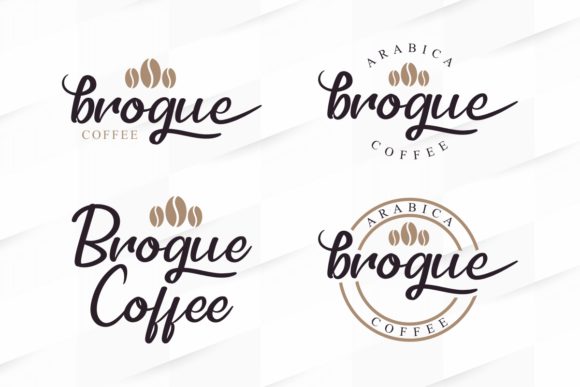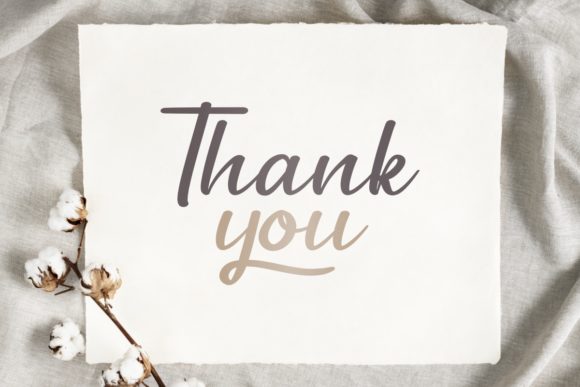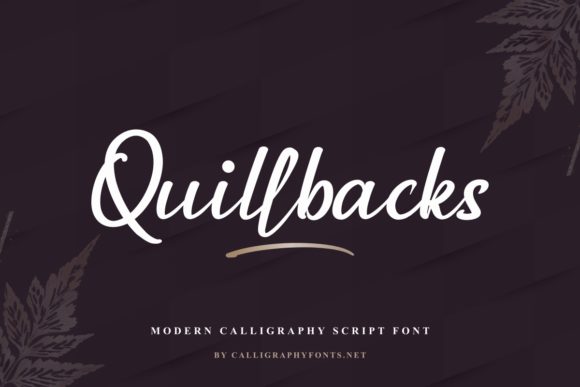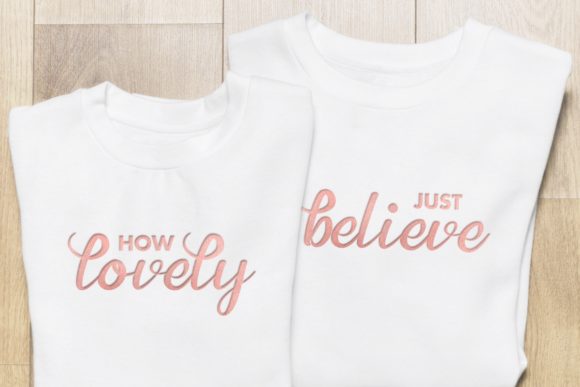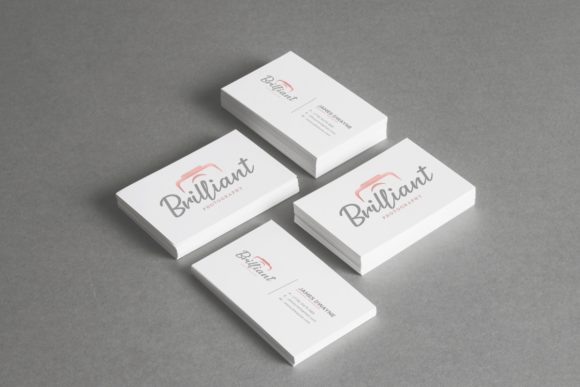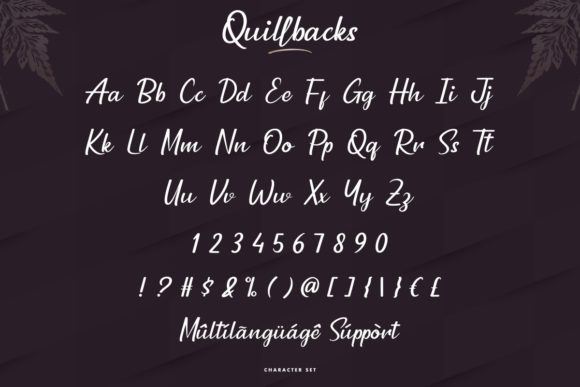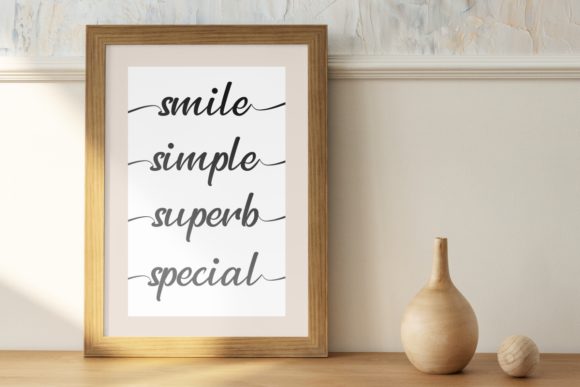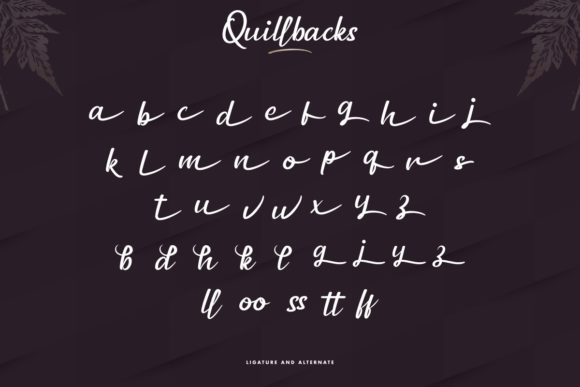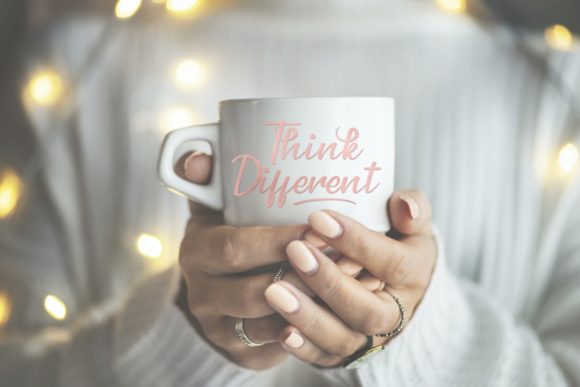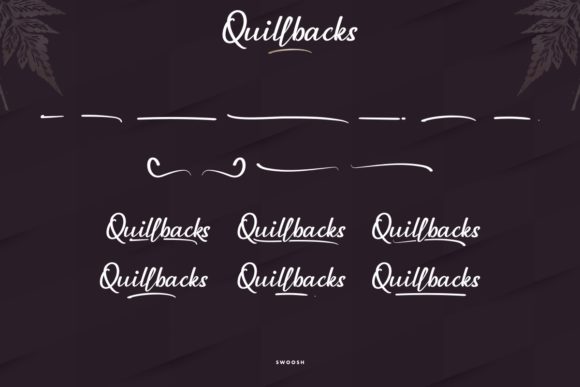
Quillbacks Font
About Quillbacks Font
Quillbacks is a beautiful, cursive and smooth handwritten font, created with the help of a brush pen. It looks beautiful on a variety of designs requiring a personalized style, such as wedding invitations, thank you cards, weddings, greeting cards, logos and so on.